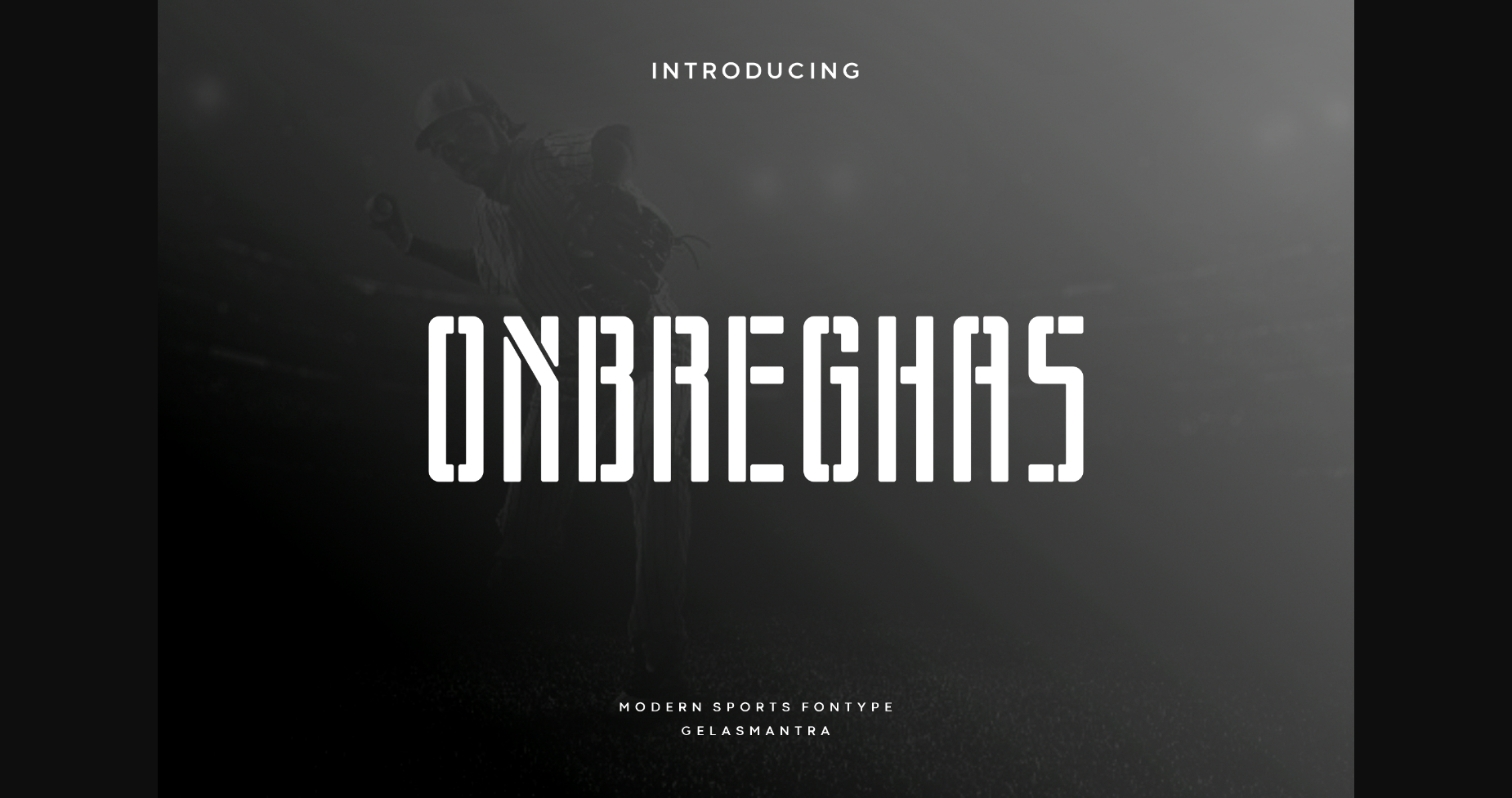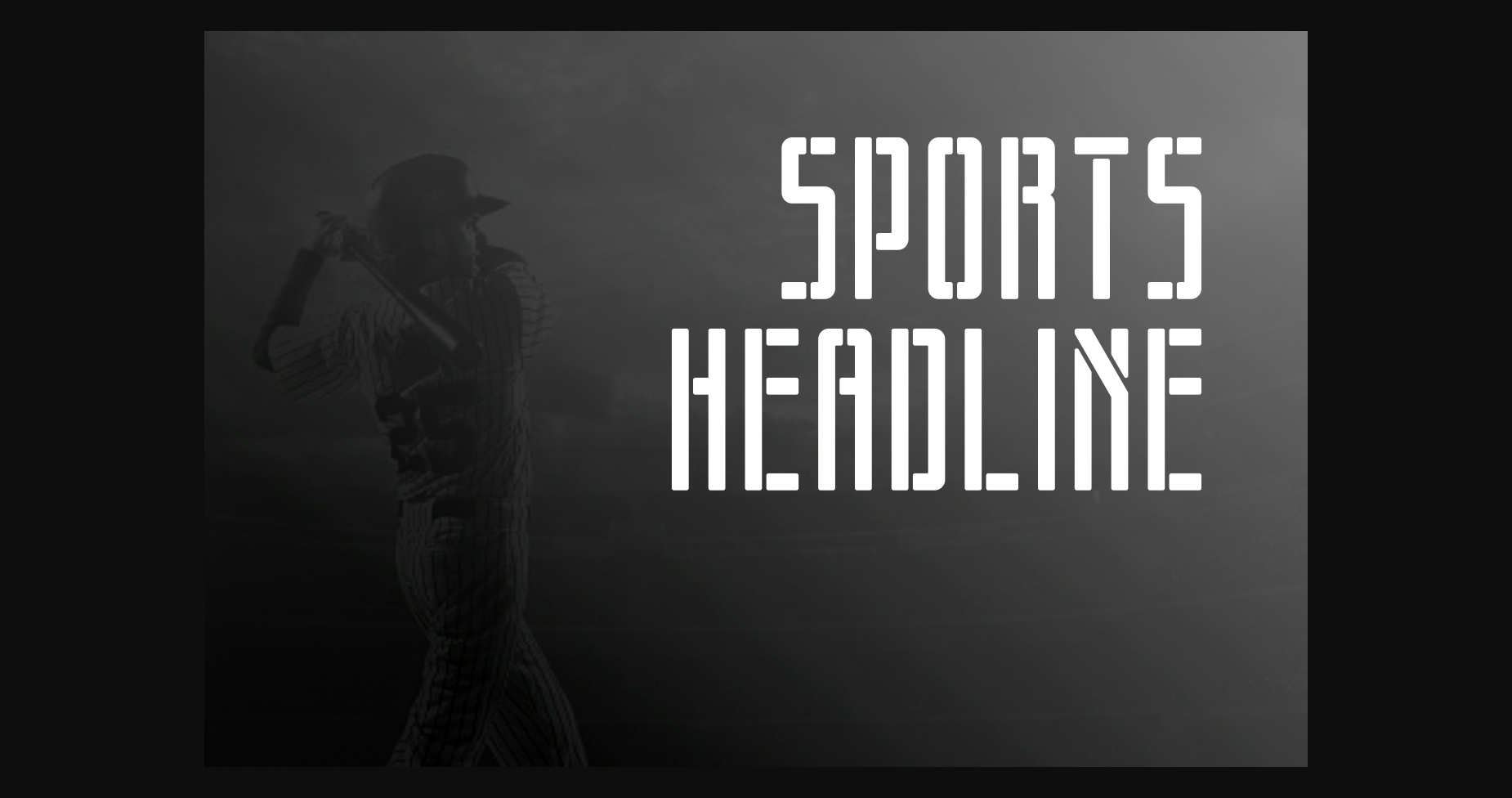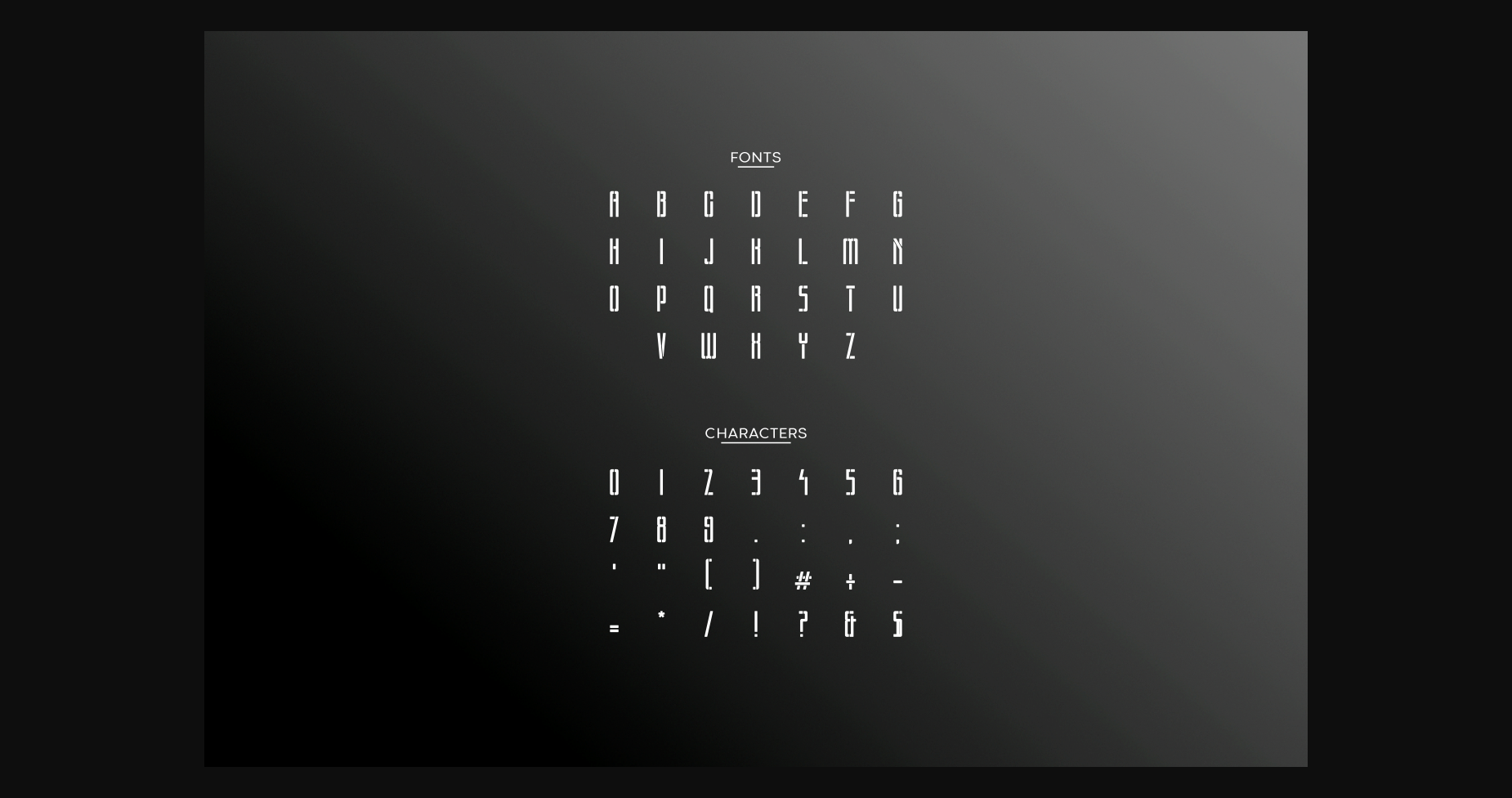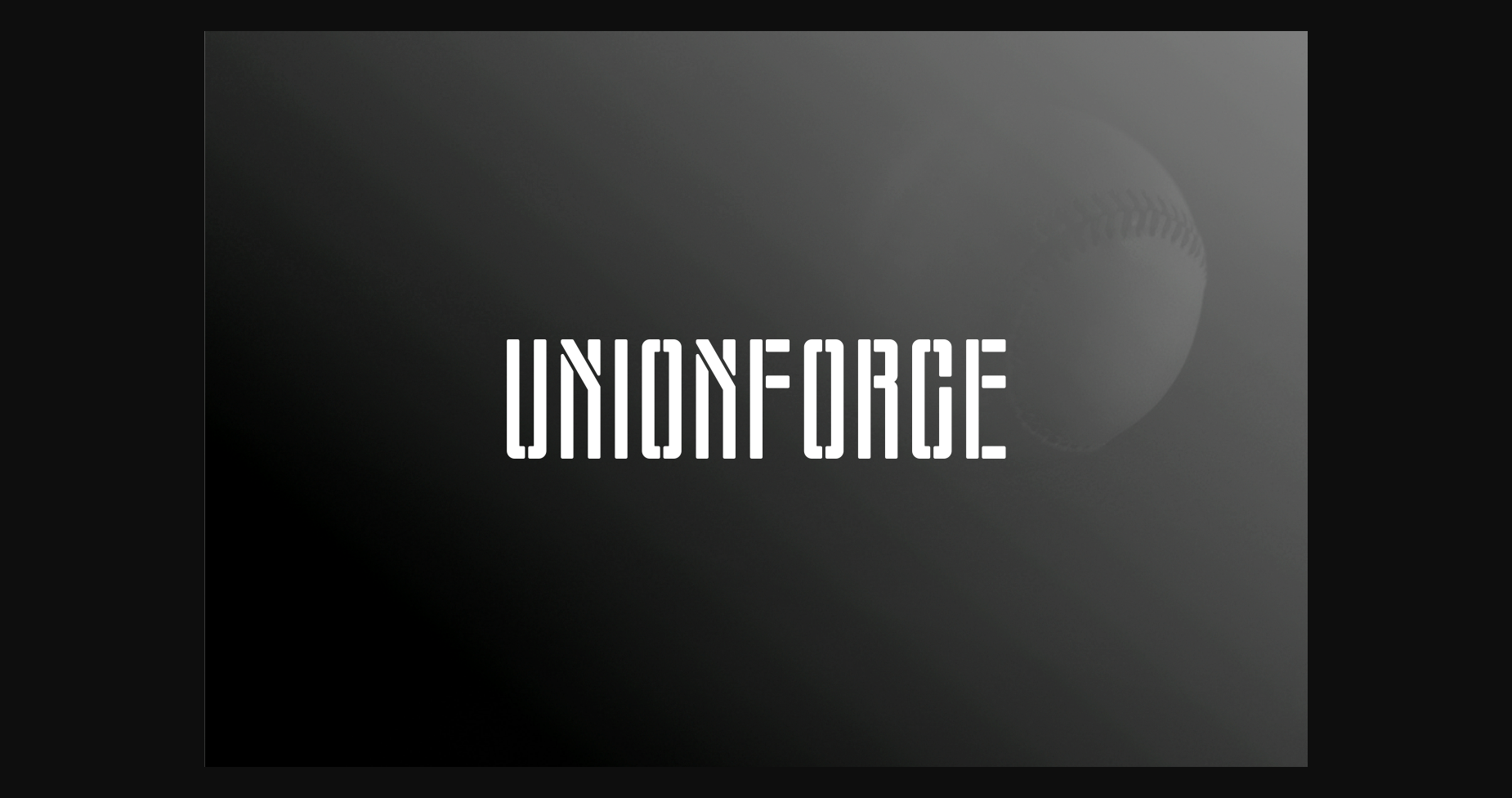
Onbreghas Font
About Onbreghas Font
Onbreghas is a sans serif font with a unique style and a bit of improvisation in the stencil style. This font is perfect for anything related to spray design, illustrations, book titles, website titles, captions on videos, or anything else.